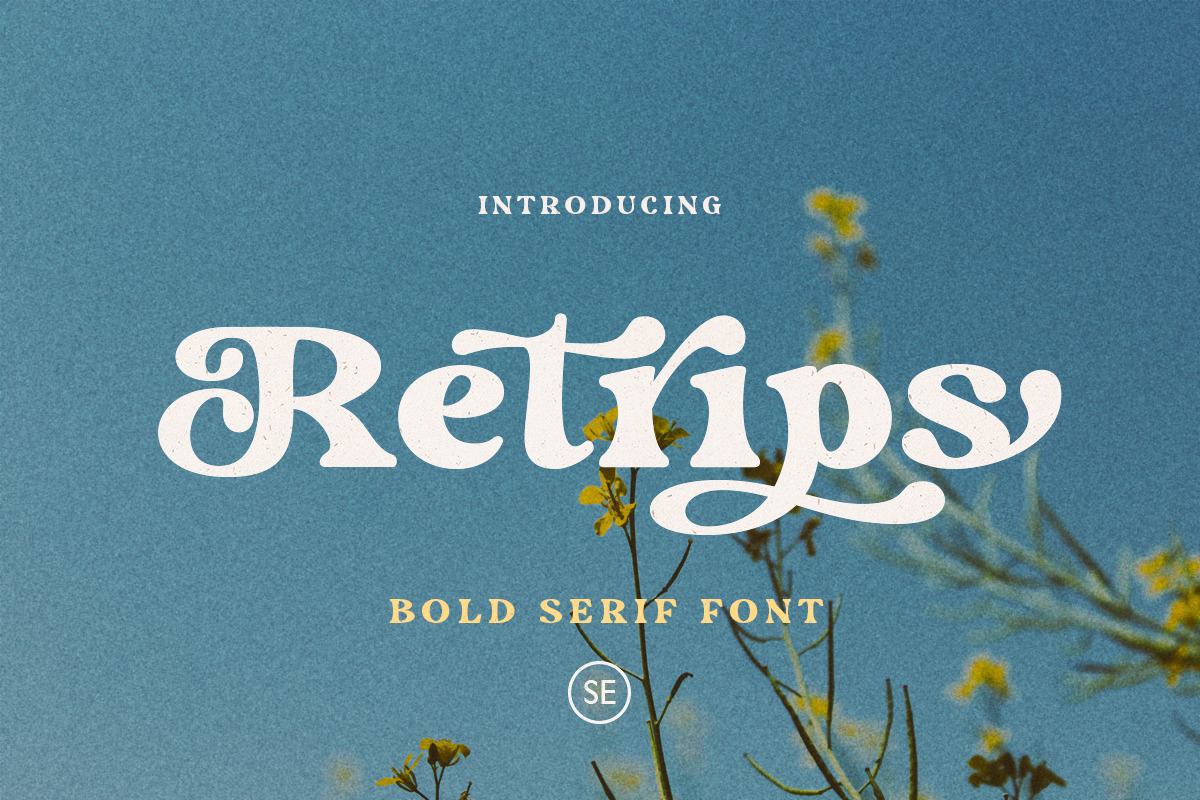
Make a bold statement with Retrips Bold Serif Font Free Download — a striking, modern serif typeface designed for high-impact designs. Perfect for branding, editorial headlines, logos, posters, and anything that requires a strong, professional look.
Retrips combines classic serif elegance with a modern, bold structure, creating a timeless yet contemporary feel. It includes uppercase and lowercase letters, punctuation, numerals, and multilingual support — offering versatility for a wide range of creative projects.